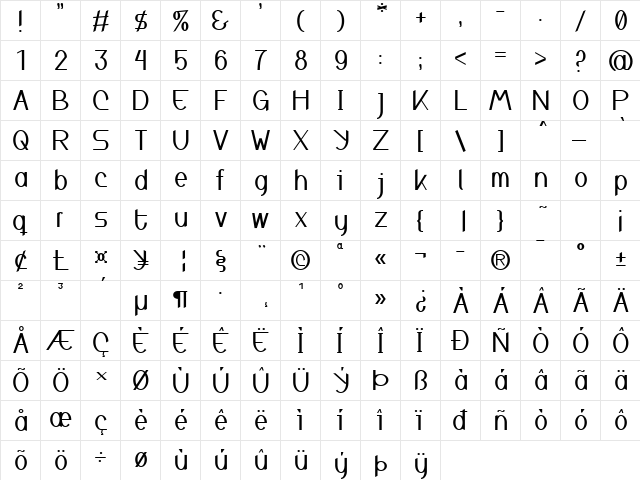
Inspyratta Regular
| Designer | Yun Gonzalez |
Design Context for Inspyratta Typeface
Inspyratta takes a measured approach to typography — its balanced proportions and neutral character make it a reliable workhorse for both digital and print work.